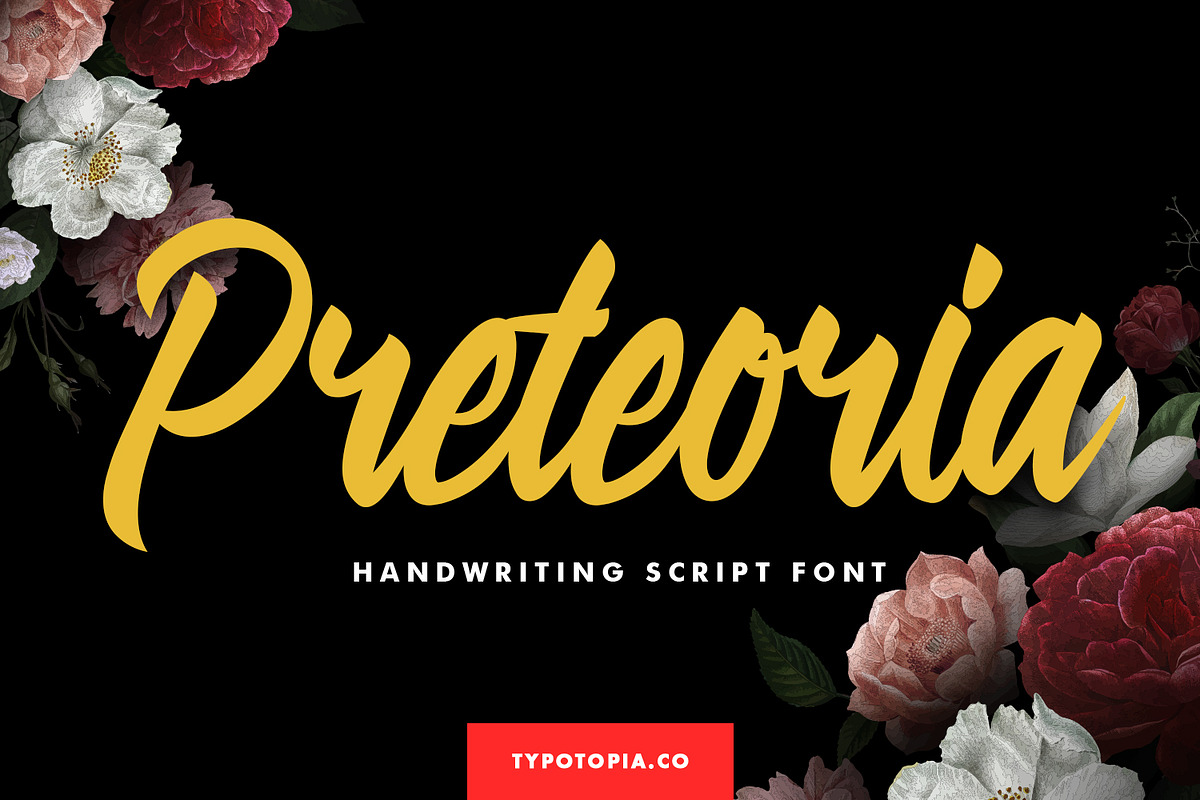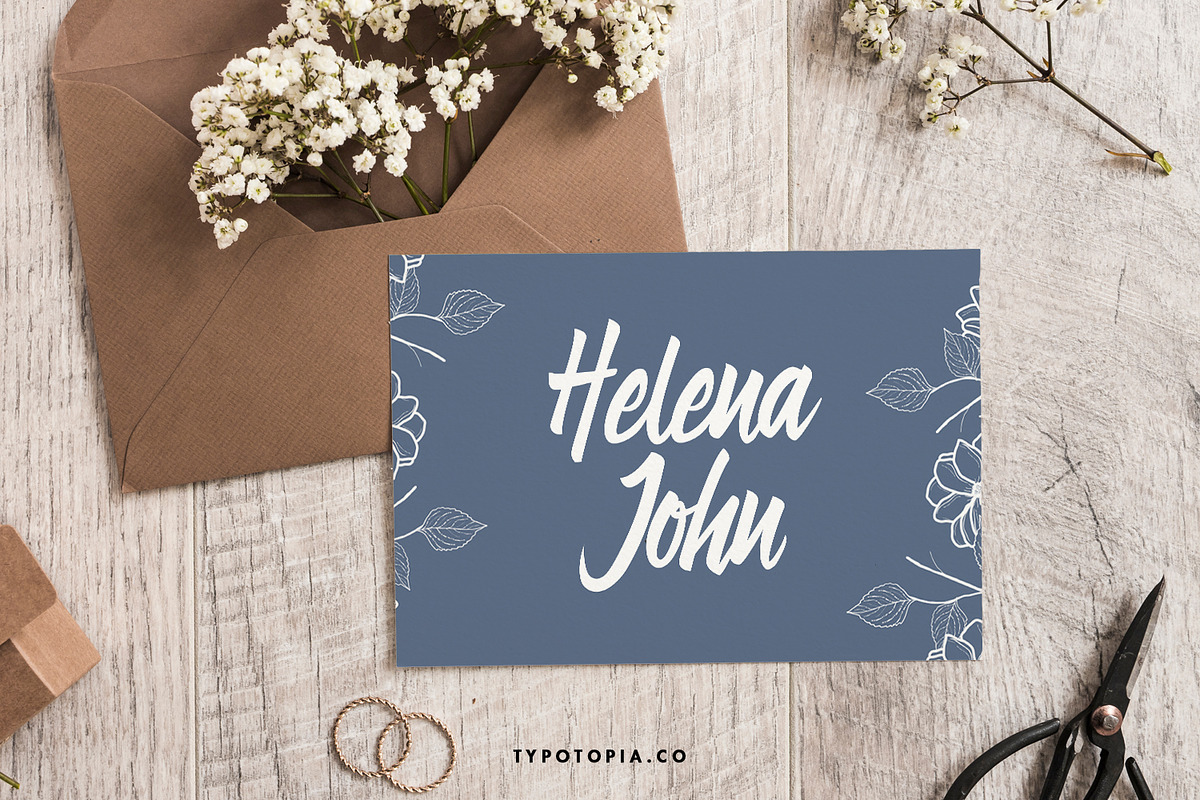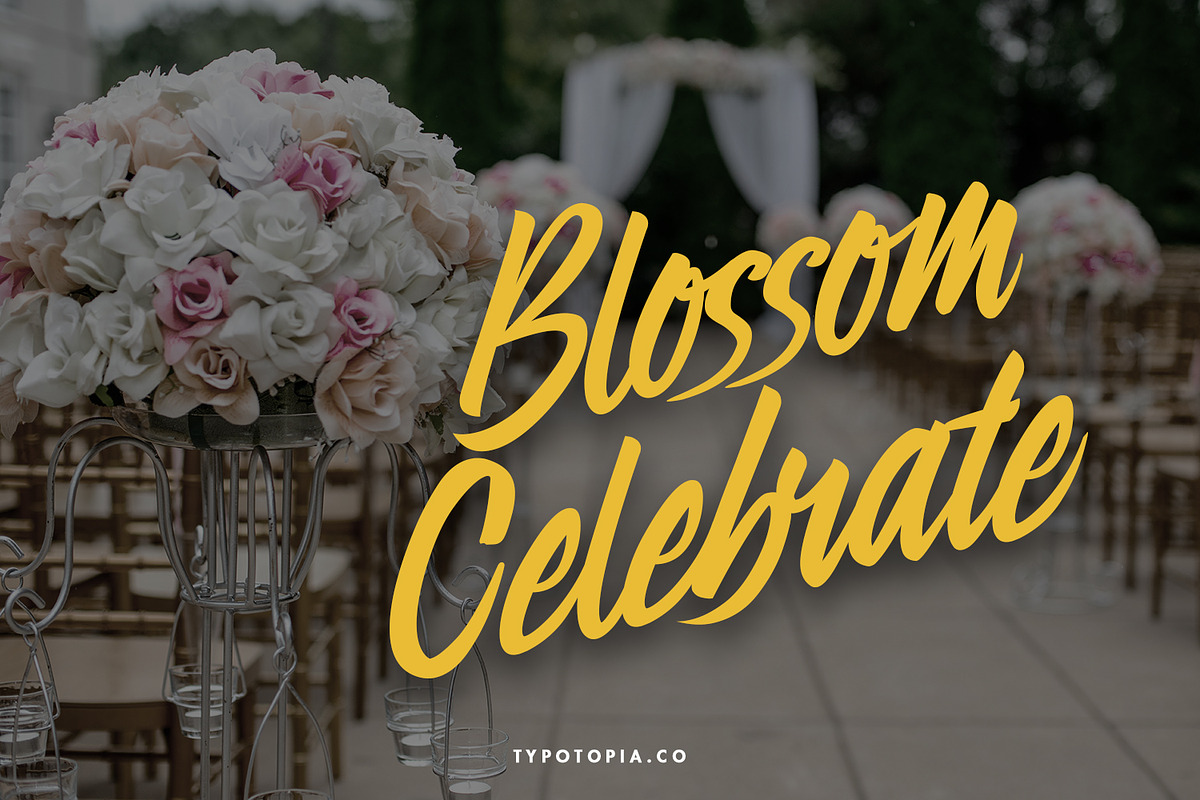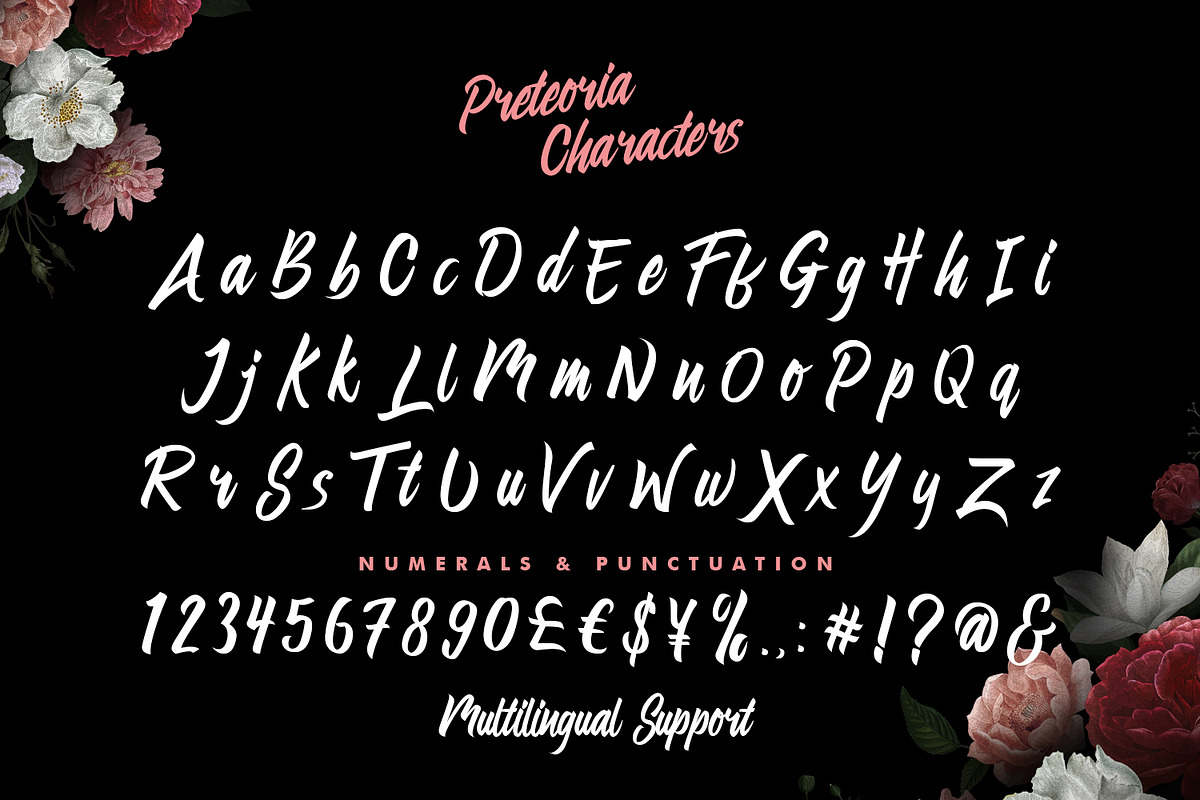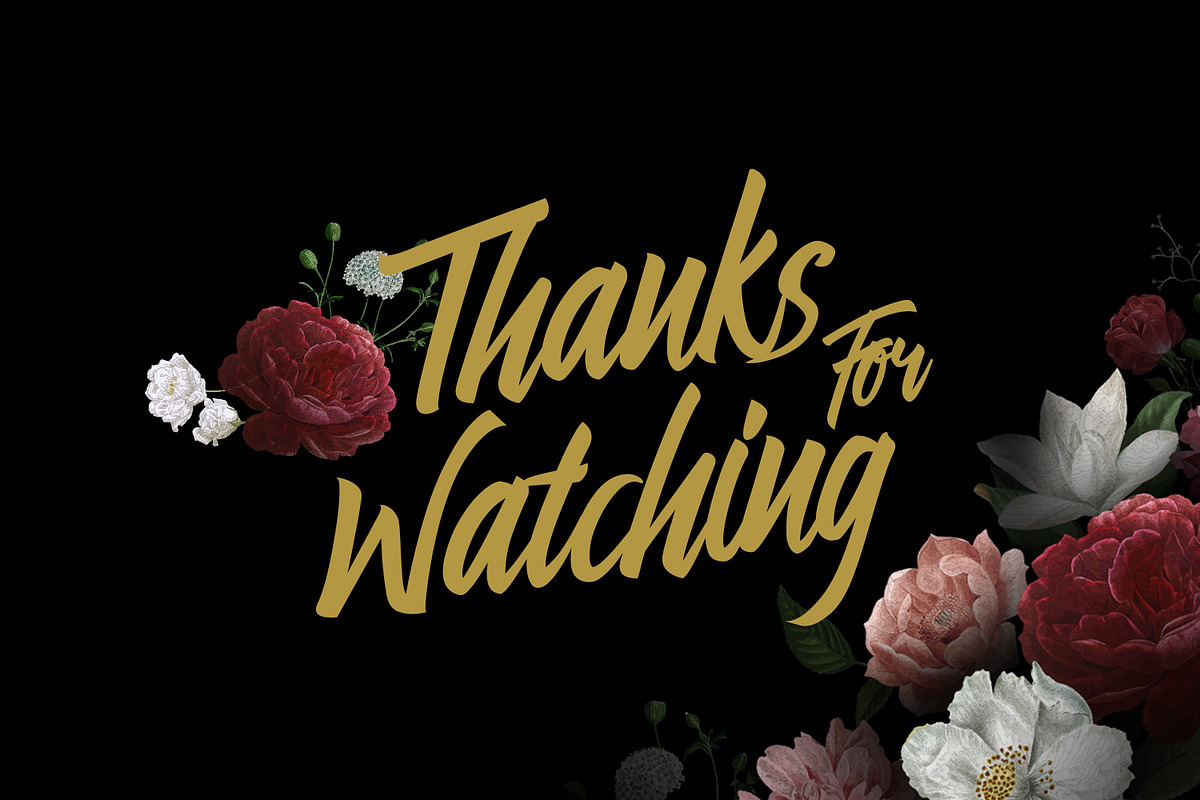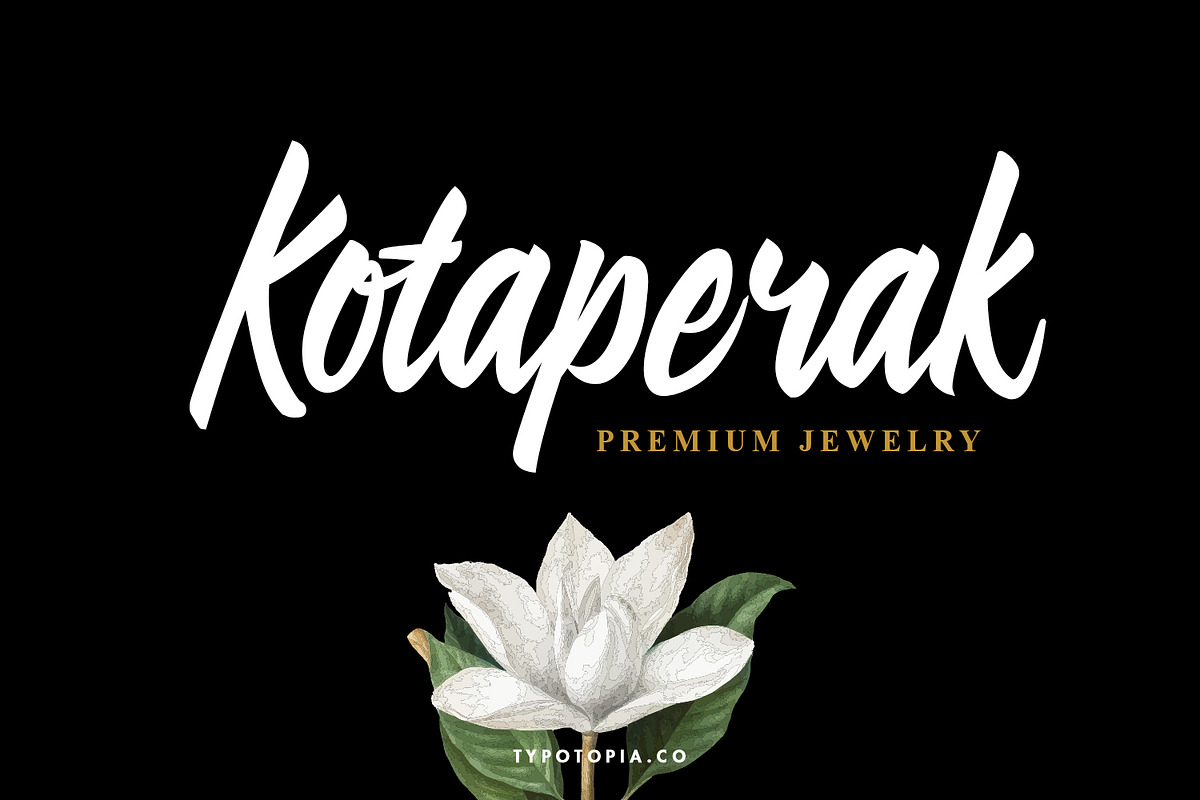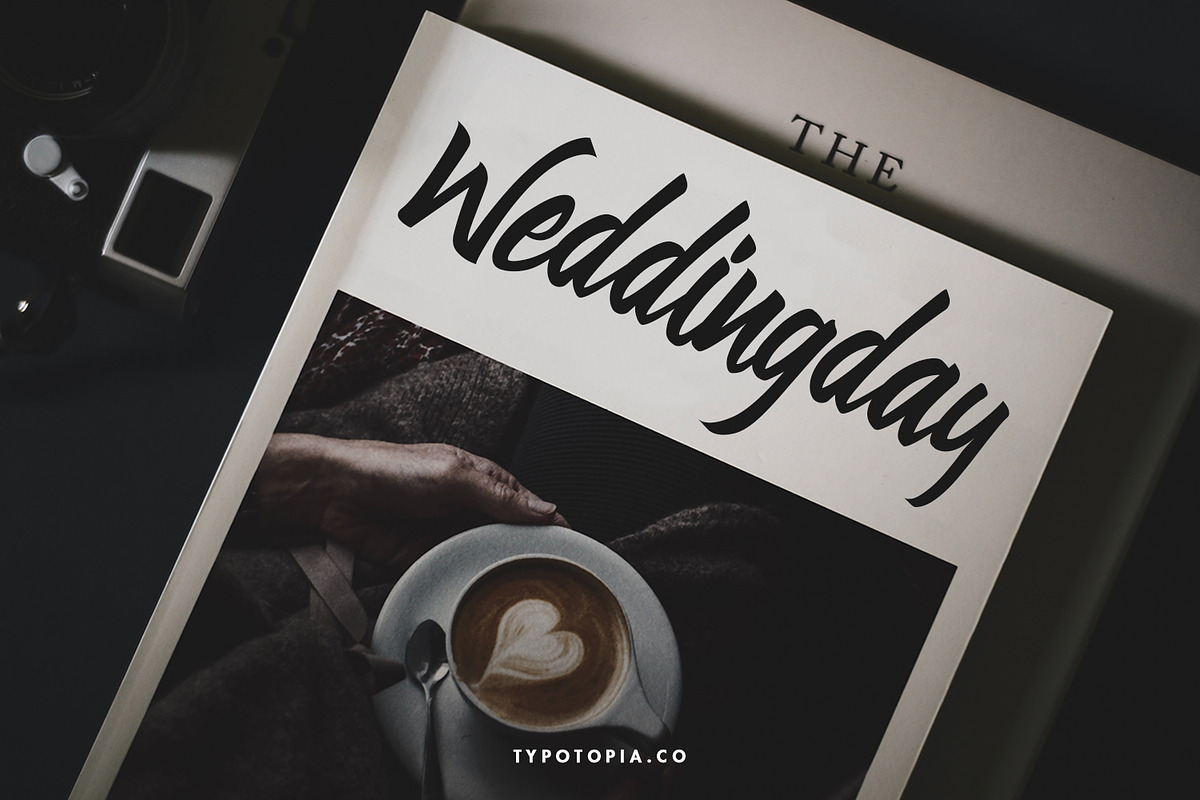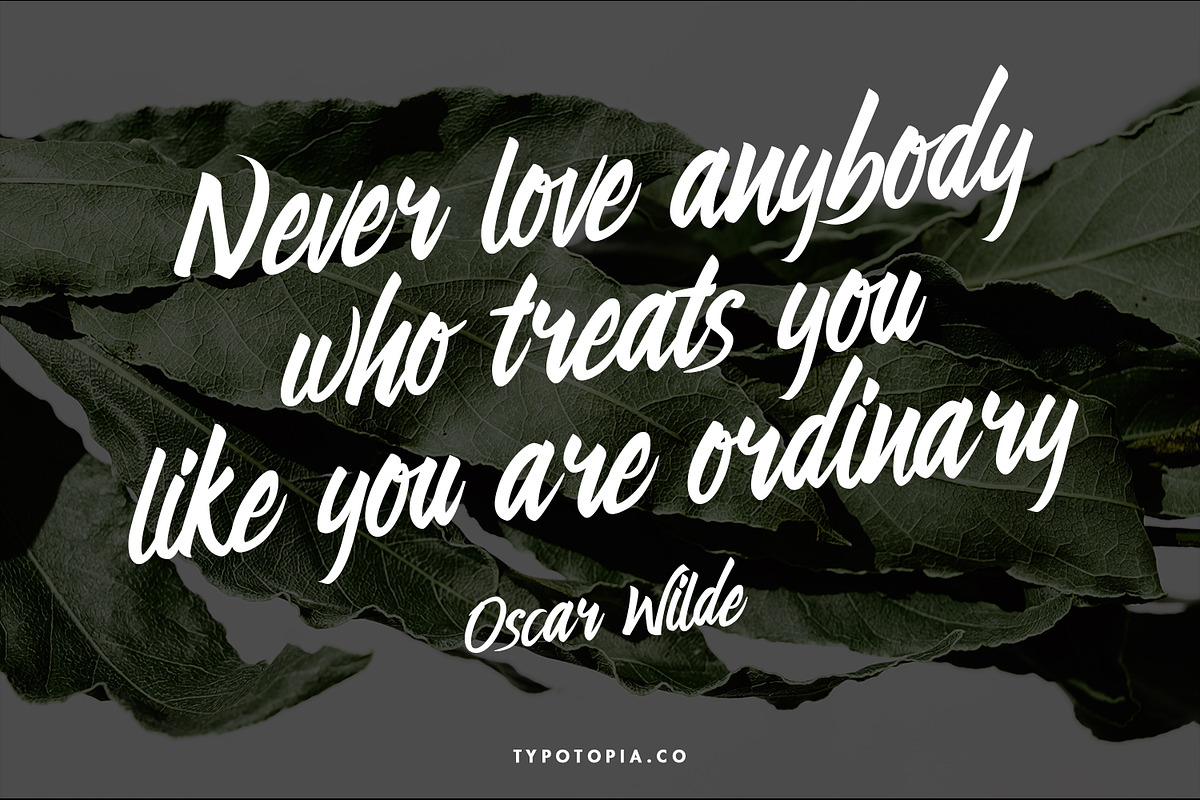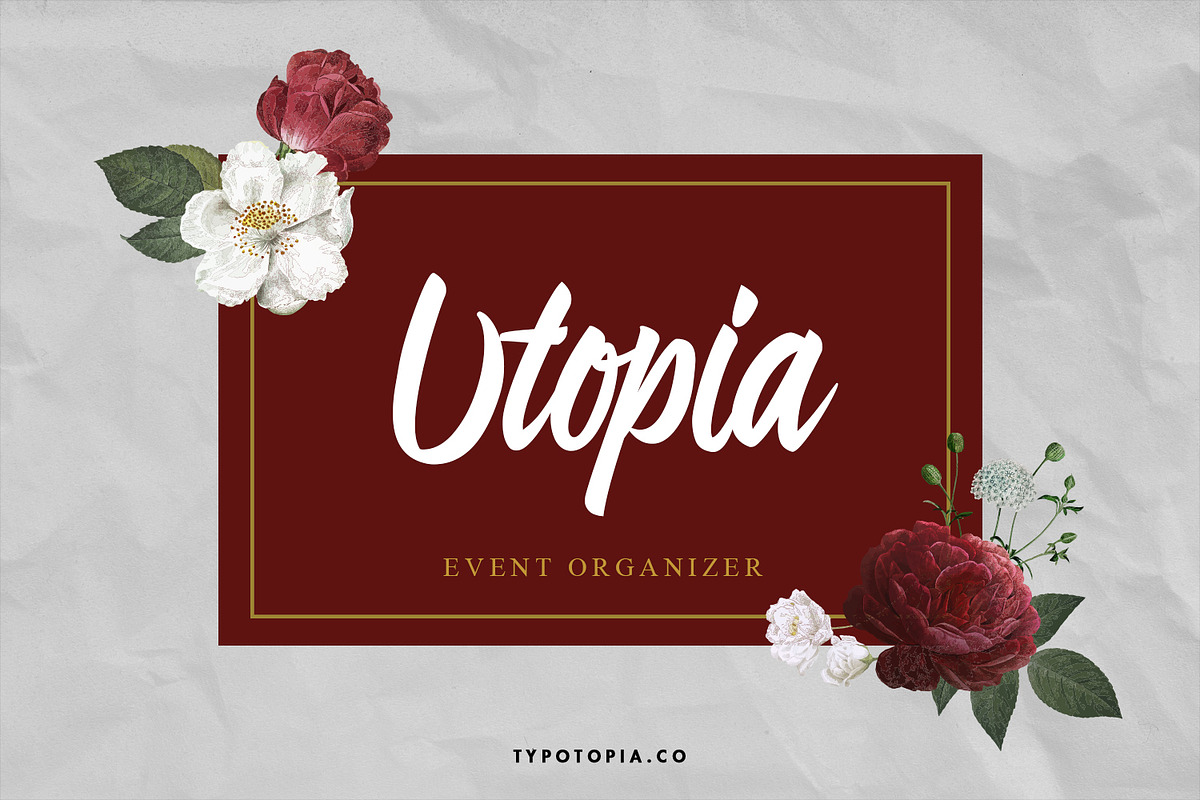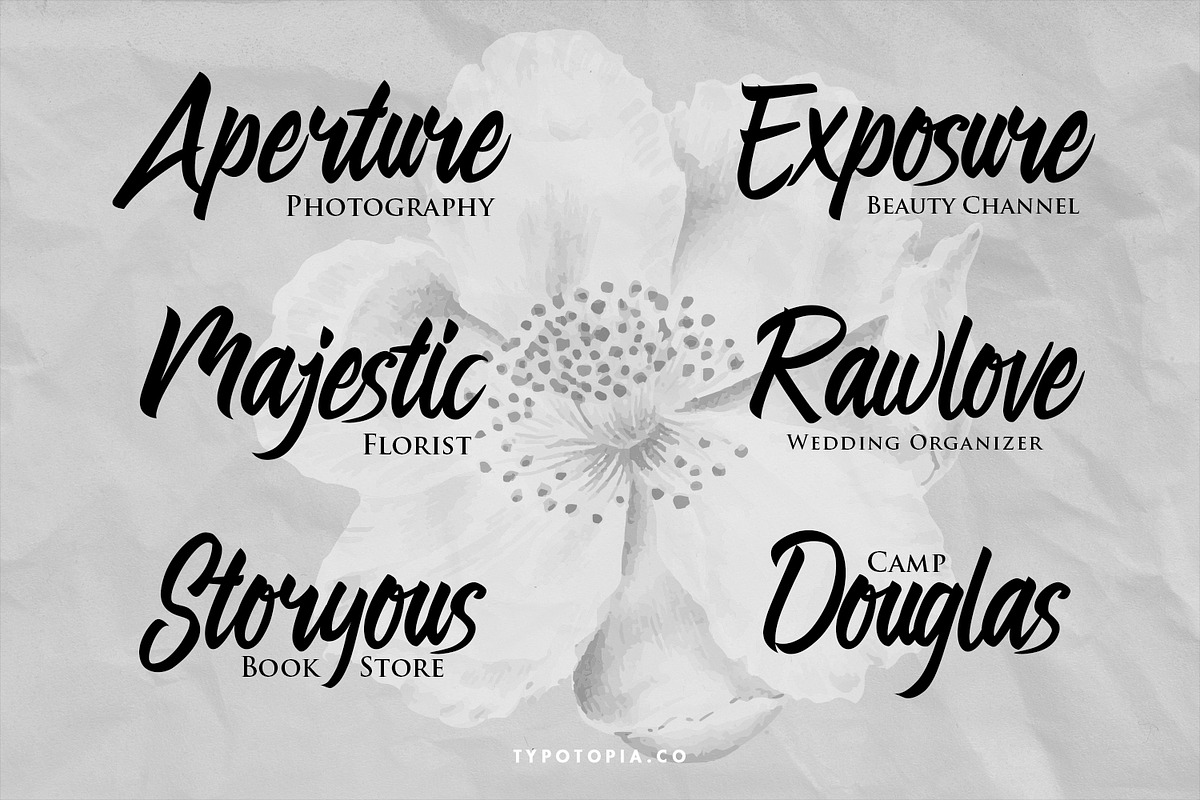
Preteoria Script
Introducing Preteoria
A beautiful and unique modern calligraphy script Fonts. This type of font perfectly made to be applied especially for logos, fashion, stationery, magazines, menus, books, invitations, greeting cards, packaging, labels, apparel, marketing, business cards, etc. otf, ttf,woff